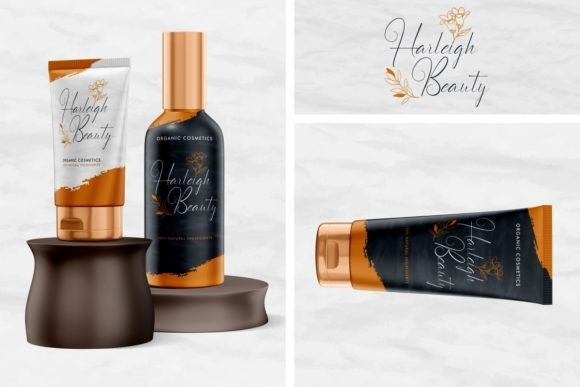
Waterflowers Font
Waterflowers is an elegant calligraphy script font with sophisticated characters, stylish swash, and gorgeous alternates. It is perfect for invitation calligraphy, luxury branding, fashion promotions, song title, and many more projects. This font is crafted carefully in every single scratch, created to look as close to natural handwriting as possible so that it can create the perfect combination on each glyph.
This awesome script is for anyone who needs a touch of elegance and style for their designs.
Waterflowers will be awesome for weddings, engagement, branding, invitations, florist, hairstylist, makeup artist, event organizer, movie, music, festival, promotions, social media, etc